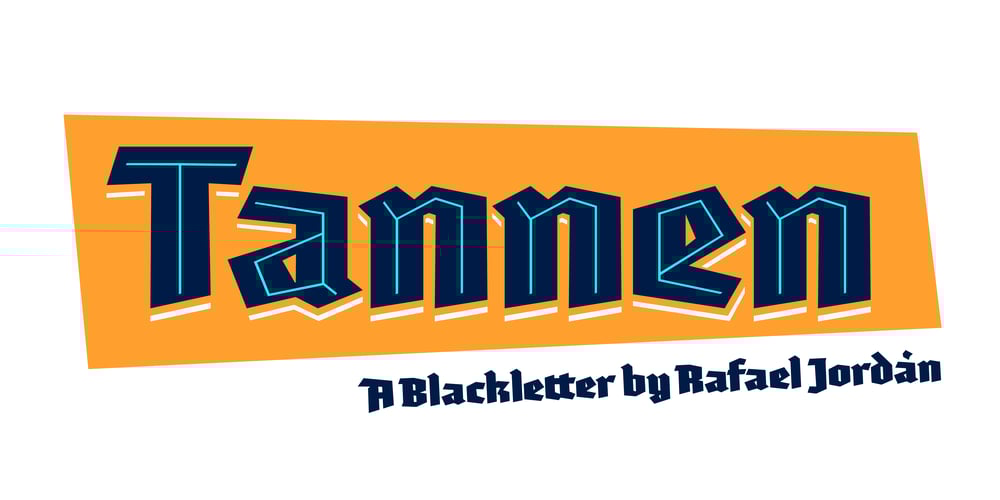
Tannen Font Family was designed by Rafael Jordán and published by Rafael Jordan. Tannen contains 12 styles and family package options. Tannen is an interpretation of the Emil Meyer’s Tannenberg, the result is a fun and cool blackletter display built without curves and casual look with a lot of personality and expressivity. It has 3 independent styles (regular, inline and shadow) that can be combined with each other, plus a stencil style. Tannen counts with 3 weights per style, OpenType features (ligatures, alternates, fractions and more) and supports dozens of latin languages.